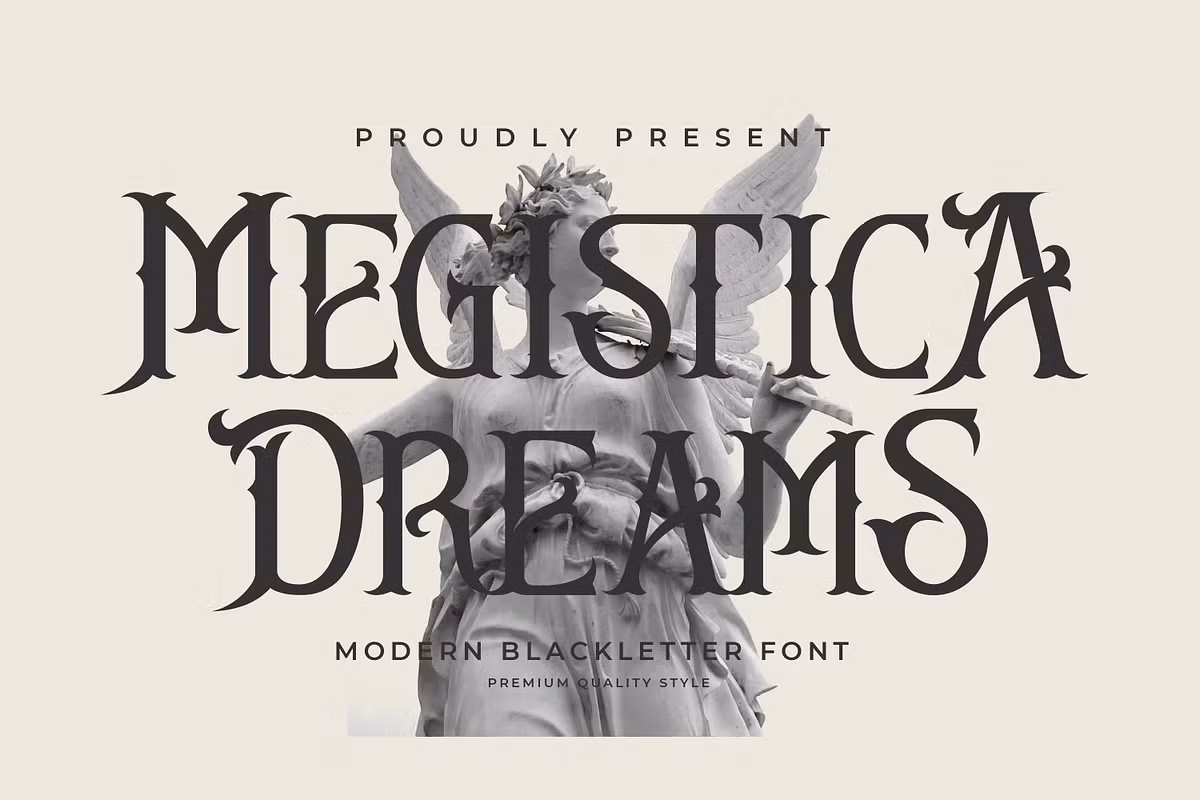
Please note, you must purchase this font for commercial use. However, you can easily download Megistica Dreams Modern Blackletter Font Free Download for personal use and testing purposes. Megistica Dreams Modern Blackletter Font is a bold and stylish typeface that combines the classic elegance of blackletter with a contemporary twist. Perfect for projects that need a dramatic and powerful aesthetic, this font is ideal for branding, logos, posters, and editorial designs. Its intricate, sharp letterforms give it a strong, edgy presence, making it perfect for both modern and vintage-inspired designs. Whether you're working on a luxury brand, a music event poster, or a gothic-style logo, Megistica Dreams Modern Blackletter Font Free Download will add a unique touch to your typography. Download Megistica Dreams Modern Blackletter Font Free Download today and explore its potential before opting for a commercial license.